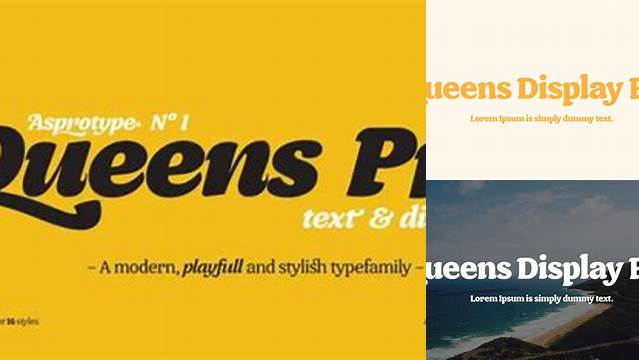
Are you on the hunt for a stunning and versatile font to elevate your design projects? Look no further! The Queens Pro Font is here to revolutionize your creative endeavors. In this comprehensive guide, we'll dive deep into everything you need to know about the Queens Pro Font free download, exploring its features, benefits, and how to seamlessly integrate it into your workflow. Whether you're a seasoned designer or a budding enthusiast, this article is your ultimate resource for unlocking the full potential of this remarkable typeface. Get ready to transform your designs and make a lasting impression!
What is Queens Pro Font?
First things first, let's clarify what makes the Queens Pro Font so special. This isn't just any font; it's a meticulously crafted typeface designed to exude elegance, sophistication, and a touch of modern flair. Known for its clean lines, balanced proportions, and a wide range of weights and styles, Queens Pro Font offers unparalleled versatility, allowing you to create a cohesive and visually appealing design across various applications. From eye-catching headlines to body text that's easy on the eyes, this font has got you covered. The beauty of Queens Pro Font lies in its ability to adapt. It seamlessly transitions from the digital realm to print, ensuring your designs always look their best. This adaptability makes it a favorite among designers worldwide, who appreciate its ability to convey a message with both clarity and style. Its roots stem from classic typography while embracing a contemporary approach, thus providing a perfect blend of timeless appeal and modern aesthetics. This combination ensures that your designs will not only look current but also possess a lasting charm. Let's not forget about the details. Every curve, every angle, and every stroke in the Queens Pro Font has been carefully considered to ensure optimal readability and visual harmony. It's a font that's designed to be appreciated, making your content stand out from the crowd. Its extensive character set means that it supports multiple languages, further increasing its versatility and appeal. This makes Queens Pro Font an ideal choice for global projects. You can use it for everything from logos and branding to website design and print materials. It’s the Swiss Army knife of fonts! The goal here is to empower you with the knowledge and tools to make the most of your creative ventures. The key takeaway is that Queens Pro Font is more than just a typeface. It's a gateway to design excellence. This is a font that supports multiple languages, making it an ideal choice for global projects. You can use it for everything from logos and branding to website design and print materials.
Benefits of Using Queens Pro Font
So, why should you choose Queens Pro Font? The advantages are numerous, and here's a breakdown of what makes this font a must-have for designers:
- Versatility: As mentioned earlier, the adaptability of Queens Pro Font is unmatched. Whether you need a font for a sleek logo, a user-friendly website, or a captivating print campaign, it will deliver. The variety of weights and styles ensures you can create a consistent brand identity across all platforms.
- Readability: In the design world, readability is king. Queens Pro Font is designed with readability in mind. This is especially critical for body text, where clarity is paramount. Its clean lines and open counters make it easy to read, even at smaller sizes.
- Aesthetic Appeal: The aesthetic qualities of a font can make or break a design. This font is visually appealing, balancing modern elegance with a timeless touch. This ensures your design will look great now and in the future.
- Professionalism: Using a high-quality font immediately elevates the professionalism of your work. It shows attention to detail and a commitment to quality, both of which are crucial in the design world. It gives off an air of credibility and trustworthiness, which is essential for any brand or business.
- Wide Range of Applications: This font isn't limited to specific niches. You can use it in various design projects, including web design, branding, advertising, packaging, and more. This versatility will help you adapt to a variety of design requirements.
- Strong Visual Hierarchy: Using different weights and styles of Queens Pro Font allows you to create a strong visual hierarchy. This helps guide the viewer's eye through your content, making it more engaging and easier to understand.
- Consistency: When you use a consistent font throughout all your design projects, you create a consistent brand identity, which builds recognition and trust. Using the same font ensures that your brand has a unified look and feel across all media platforms. This consistency helps reinforce your brand message and values.
- Extensive Character Set: This font typically comes with a wide array of characters, including special symbols, ligatures, and diacritics. This extensive character set allows you to support multiple languages, which is invaluable if you work on international projects.